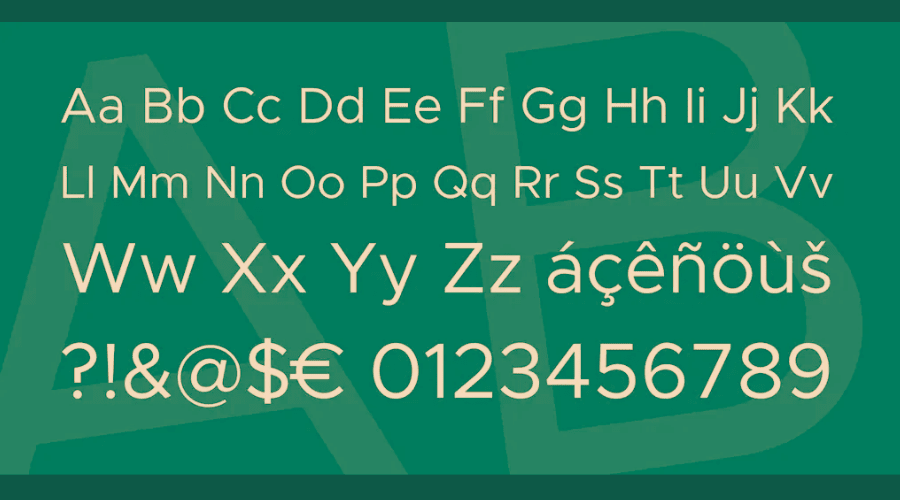
Metropolis Font
The Metropolis typeface was inspired by the industrial revolution of the 1920s, which gave birth to skyscrapers. On December 27, 2020, osip Kaleva from Melbourne, Australia, developed and published it.
Graceful Metropolis Sans Font is a basic, geometrical sans serif font family used as a replacement for Proxima Nova. Other prominent geometric, minimalist sans serif typefaces impacted the Metropolis design, including the aforementioned Proxima Nova and Montserrat. Metropolis comes in nine different font weights, along with an italic variation, for 18 different styles. Its basic kind made it easy to read in small letter sizes while still looked great on large screens. Because it is released under the SIL Open Font License, you can download and use it for personal and commercial applications.
This typeface has the potential to create unique and remarkable designers. It gets regular rave reviews as the latest design font. The font works great for quotations as well.